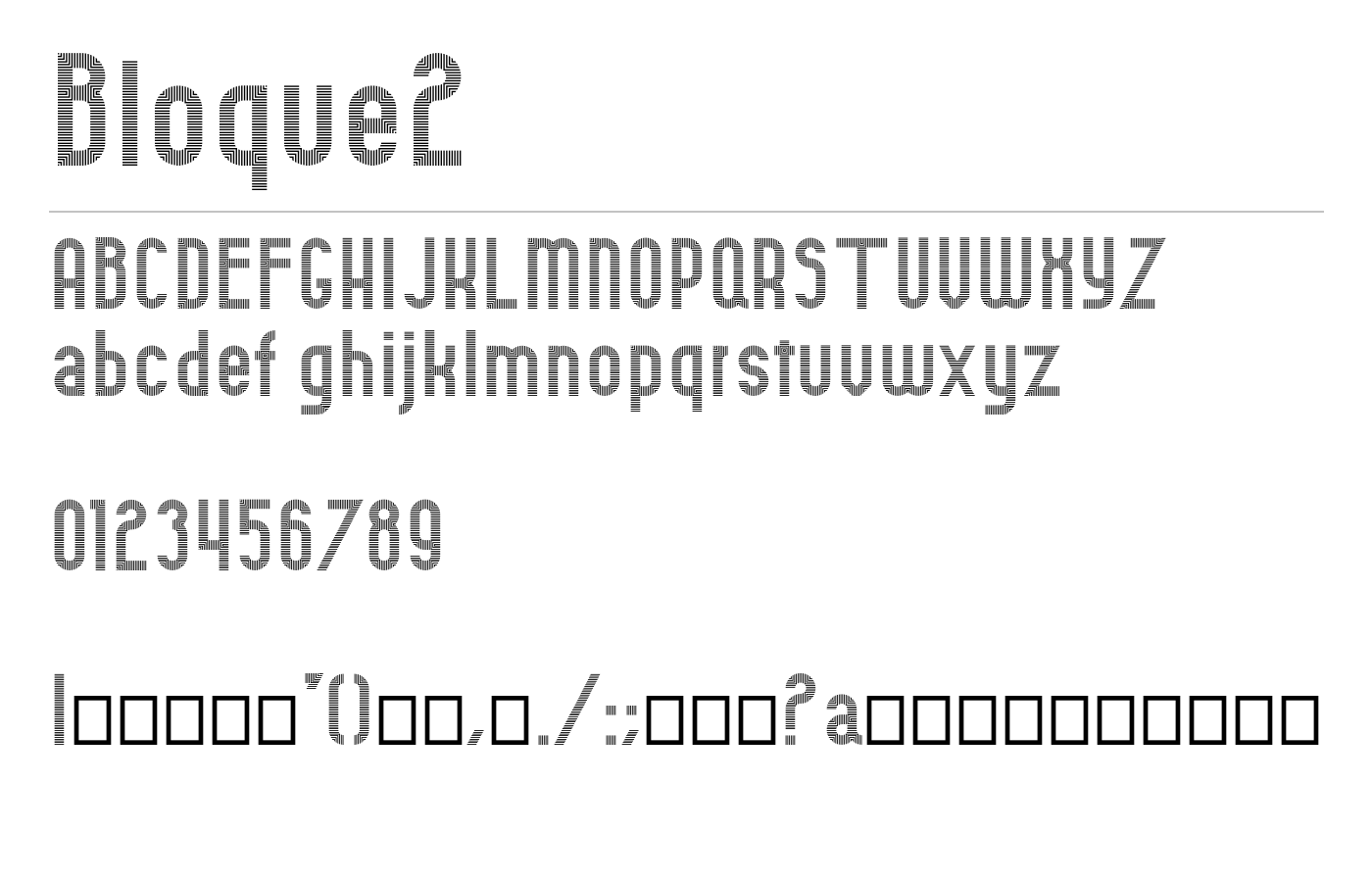
Bloque2 is a modern, condensed sans serif font characterized by its unique striped, block-like pattern that gives it a distinct, eye-catching texture. With a tall x-height and geometric letterforms, it evokes a bold, futuristic feel that works well for headlines, branding, and display purposes where a contemporary, tech-inspired look is desired. This font's playful yet structured style makes it ideal for innovative design projects seeking a fresh and memorable appearance.
Bloque2 Font